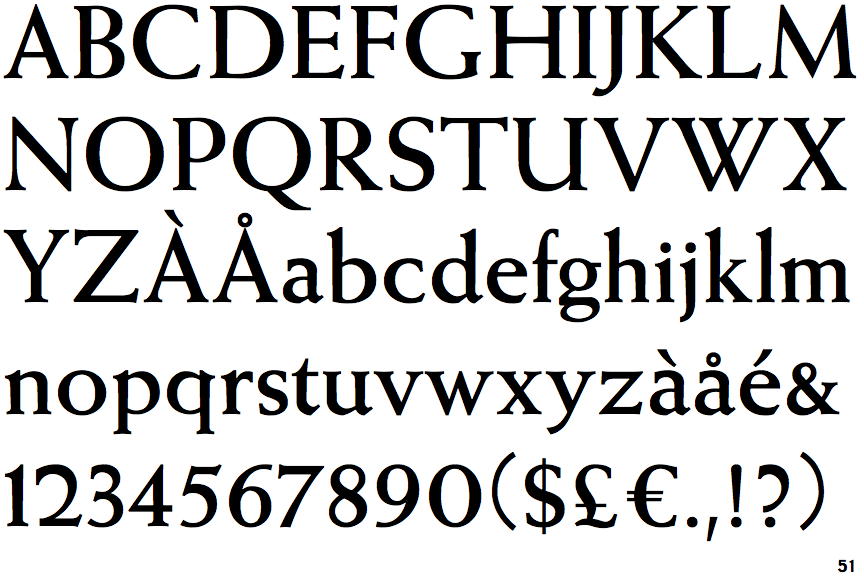
Emilia Bold
A revival of Weiss Antiqua Halbfett, designed by Emil Rudolf Weiss and originally published by Bauer Type Foundry in 1931.
Designers: Emil Rudolf Weiss and Ralph M. Unger Year: 1931, 2016 Publisher: RMU Typedesign |